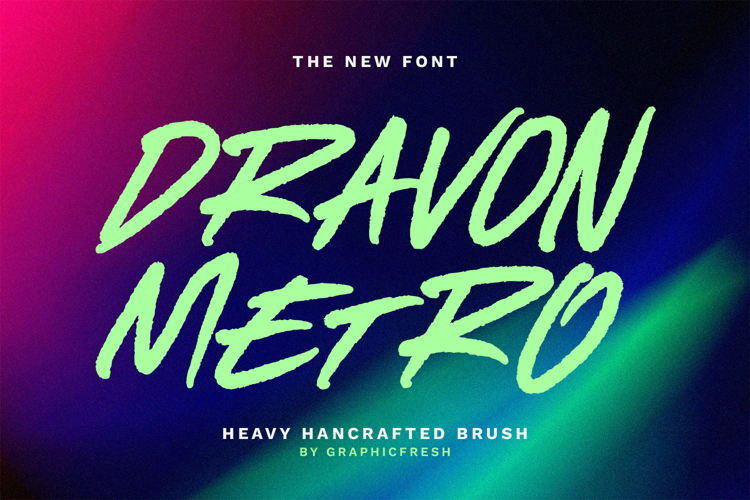
Dravon Metro - The Heavy Handcrafted Brush Font
Dravon Metro is a heavy handcrafted brush font built with bold strokes and intense texture. Designed to deliver strong visual weight and confident character, this font captures the raw energy of thick hand-painted lettering. Its powerful structure and organic brush marks create a striking presence while maintaining solid readability. Perfect for branding, logos, headlines, posters, social media graphics, and creative projects that demand impact and dominance. Dravon Metro brings strength, grit, and handcrafted authenticity into every design.